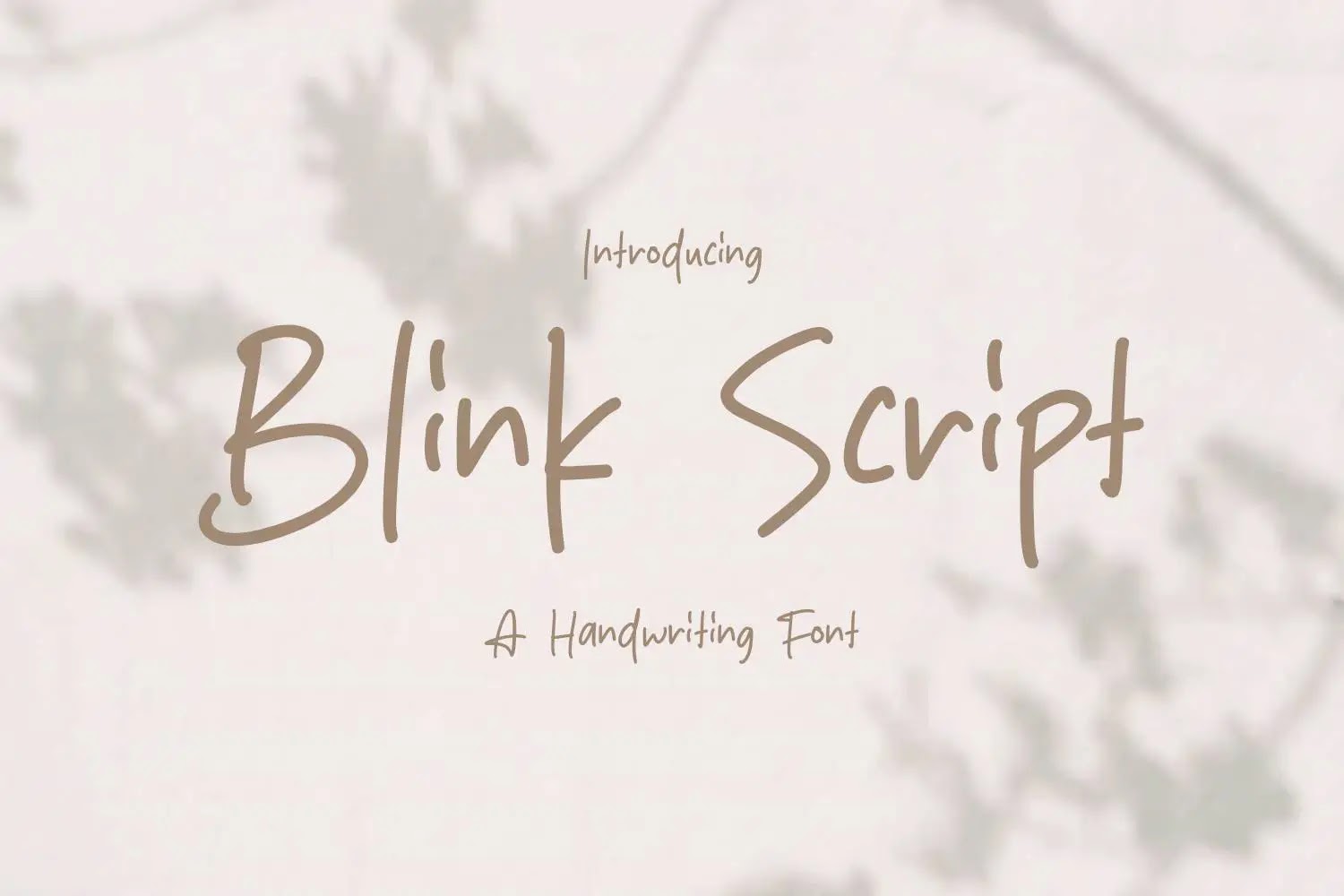
Blink Script Font is a charming handwritten typeface designed to bring a personal, expressive touch to your creative projects. With its flowing strokes and casual elegance, this font captures the feel of natural handwriting, making it perfect for everything from invitations and quotes to social media graphics and branding. Its clean and modern script style adds warmth and authenticity to any design.